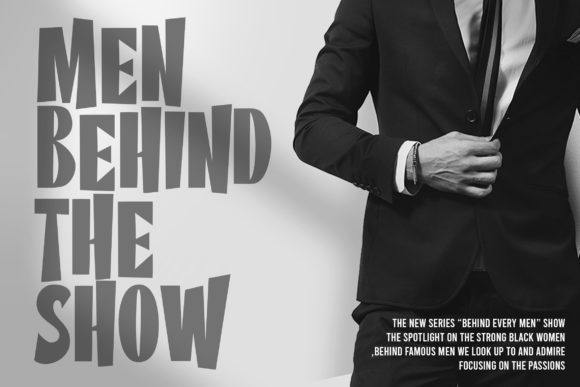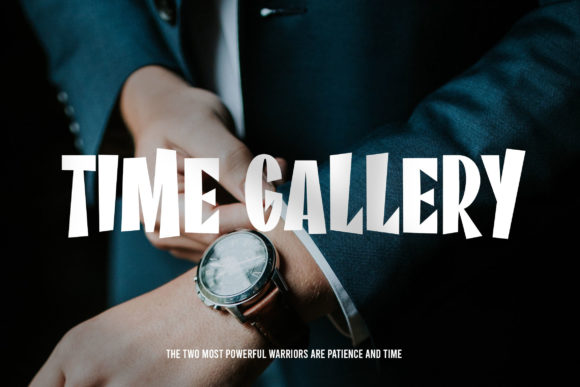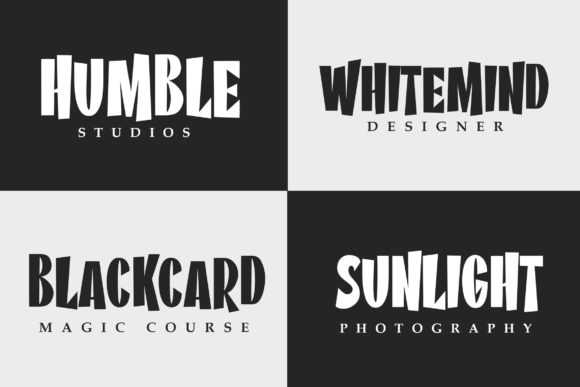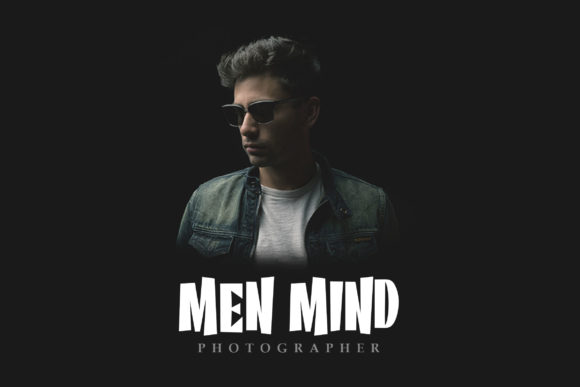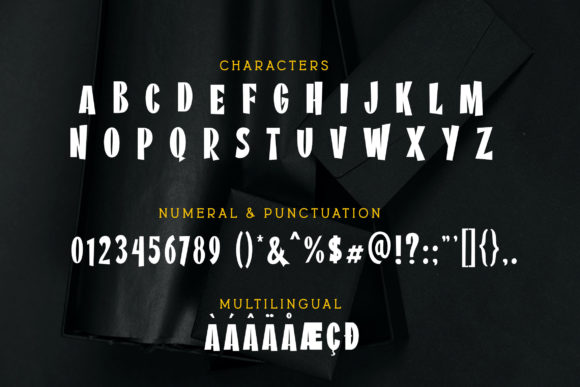
The Ultimate Guide to Black Trick Font: Unleashing Bold Creativity
I’ll never forget the time I was working on a project for a sportswear brand, and I was struggling to find the perfect font to capture their edgy, bold personality. The client wanted a design that would stand out on t-shirts and hats, but everything I tried seemed too bland or overused. That’s when I stumbled upon the Black Trick Font – a game-changer for any designer looking to add a cool, assertive touch to their work.
An Honest Review of Black Trick Font
So, what makes Black Trick Font so special? Let’s dive into the good stuff and a few quirks to keep in mind.
- ✨ Bold and Assertive: Black Trick Font is perfect for making a statement. Its bold strokes and sharp edges give any design a confident, in-your-face attitude.
- ✅ Versatile: From t-shirts and sportswear to logos, advertisements, and clothing, this font adapts seamlessly to various design projects.
- 💡 Easy to Read: Despite its boldness, Black Trick Font remains surprisingly legible, even at smaller sizes.
While Black Trick Font is an amazing tool, there are a few things to keep in mind:
- 🤔 Limited Elegance: This font is bold and assertive, but it may not be the best choice for more elegant or sophisticated designs.
- ⚠️ Overuse: Because it’s so attention-grabbing, be careful not to overuse Black Trick Font in a single design – it can quickly become overwhelming.
The Backstory Behind Black Trick Font
The story behind Black Trick Font is one of creativity and experimentation. Designed with the modern designer in mind, this font aims to bring a bold, fresh perspective to the world of typography. While the exact origins might be shrouded in mystery, one thing is clear: Black Trick Font has become a staple in many designers’ toolkits.
Q: What makes Black Trick Font unique?
A: Black Trick Font stands out with its bold, assertive design and versatility across various projects, from sportswear to logos and advertisements.
Q: Is Black Trick Font difficult to read?
A: Despite its boldness, Black Trick Font is designed to be legible, making it suitable for a wide range of applications.